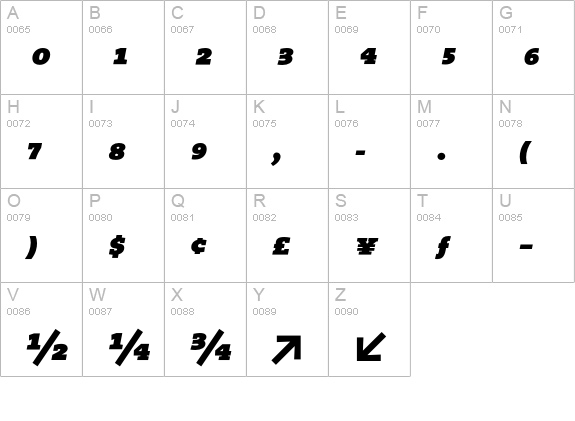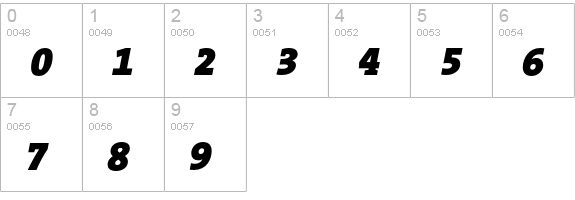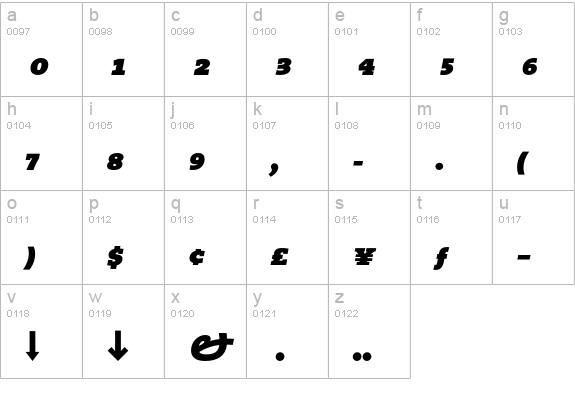
TheSerif Black Expert Italic Font Details
TheSerif Black Expert Italic is a maximum-weight, dramatic, italic variant in the TheSerif typeface family \xE2\x80\x94 well suited to maximum-impact headlines, posters, and packaging.
TheSerif Black Expert Italic font is a bold and sophisticated typeface that exudes elegance and professionalism. Its expertly crafted design features exquisite curves and fine details that make it stand out among other fonts. With its sleek and modern appearance, this font is perfect for creating eye-catching headlines, logos, and branding materials. TheSerif Black Expert Italic font is not only visually appealing but also highly versatile. Its italicized style adds a touch of flair and uniqueness to any project, making it suitable for a wide range of design purposes. Whether you're working on a magazine layout, website design, or advertising campaign, this font will elevate your creations to a whole new level. What sets TheSerif Black Expert Italic font apart is that it is freely available to download at FontsMarket.com. This means that you can access this exceptional font without any cost, making it even more attractive for both personal and commercial use. The fact that it is free does not compromise its quality in any way. In fact, it is a testament to the generosity of the font's creators, who believe in making top-notch design resources accessible to everyone. Downloading TheSerif Black Expert Italic font from FontsMarket.com is quick and easy. Simply visit the website, locate the font, and click the download button. Within seconds, you will have this stunning typeface at your fingertips, ready to bring your design projects to life. Whether you're a professional designer looking for a stylish and versatile font or an enthusiast searching for a high-quality typeface to enhance your personal projects, TheSerif Black Expert Italic font is an excellent choice. Its free availability, combined with its remarkable design, make it a valuable asset for any creative endeavor. So why wait? Download TheSerif Black Expert Italic font today and unlock a world of design possibilities.